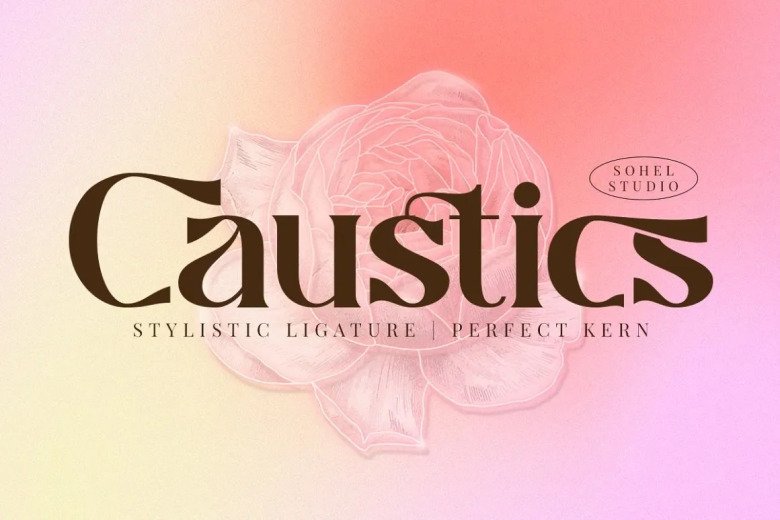
Caustics Font
Caustics Font is a serif modern and classic typeface that combine into beautiful font font. The bundle contain 4 styles you can use in your design projects. This drawer is suitable for create elegant & luxury logos, headings, book textures, movies, fashion, magazines, correspondence, quotes, websites, social media posts and more.
Caustics Serif Font